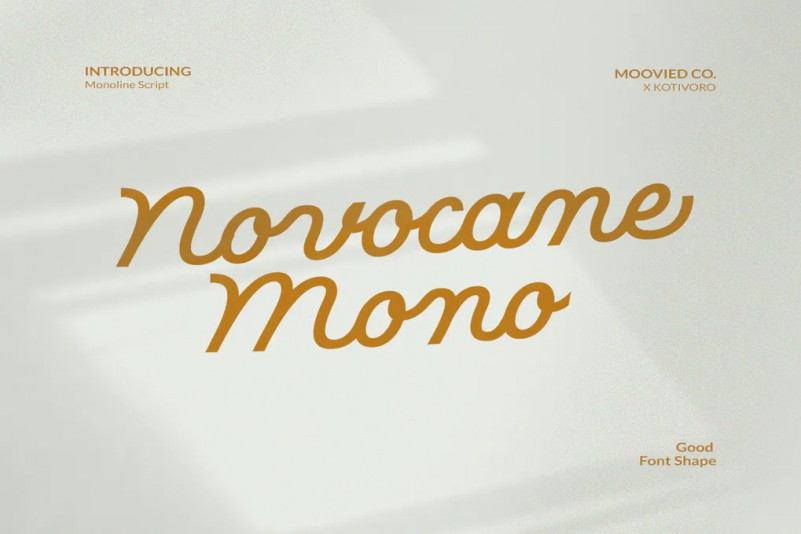
Novocane Mono Font
This script font comes with a retro, modern and vintage touch in it. Inspired by dinamic culture, sign and badges design. This font is great for your creative project such as logos, posters. invitations cards, packaging, badges, logotype, apparel design, Label, and etc.Arkland monoline comes with a retro, modern and vintage impression. Arkland is inspired by dynamic, retro and sign culture. This font is great for your creative projects, create logos, magazines, invitation cards, packaging, badges, clothing designs, labels etc.